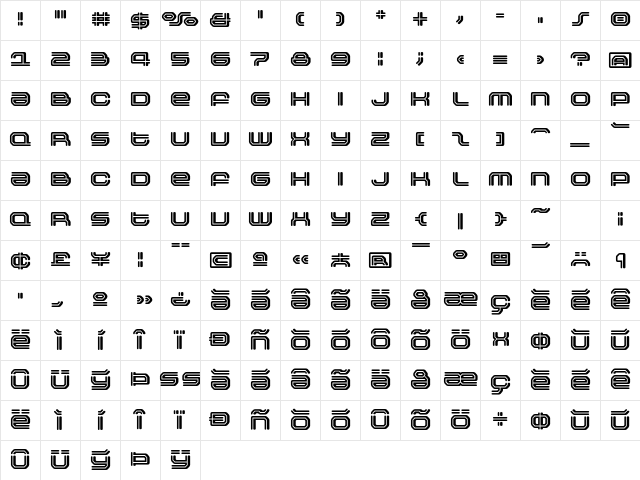
Outlander Binary
Style: Binary
Outlander Family
Outlander Binary
Design Context for Outlander
Outlander is a composed and adaptable typeface that performs quietly and consistently across a wide range of design contexts.